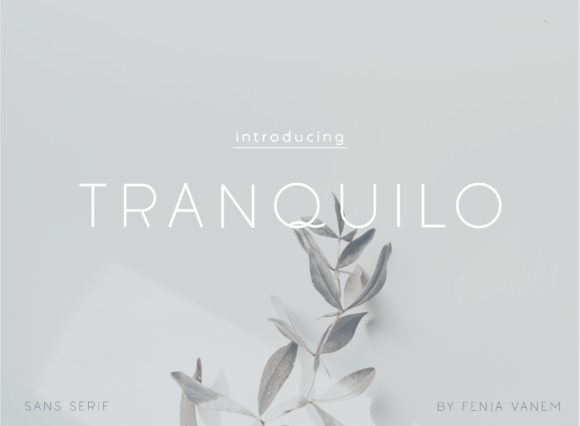
Introducing Tranquilo Font, the ultimate choice for those seeking the best font for a modern logo. Created by Pretty Decadent, this font family embodies the essence of sophistication and simplicity, making it a must-have for designers and creatives alike.
Tranquilo is a minimalistic and thin sans-serif font that effortlessly exudes modernity and elegance. Its sleek and slender letterforms captivate the eye and lend a clean, minimalist look to any design project. Whether you're working on branding, advertising, or editorial design, this font is a game-changer.
With Tranquilo Font, your brand will effortlessly stand out from the crowd. Its clean lines and refined curves add a touch of class and refinement to your logo, elevating it to new heights. Embrace the power of simplicity and let this font speak volumes about your brand's modernity and style.
This font is more than just a tool; it's a creative catalyst. It inspires designers to push boundaries and explore new horizons. With Tranquilo Font, you can unleash your creativity and bring your vision to life. Its versatility allows for endless possibilities, enabling you to create stunning designs that leave a lasting impression.
Whether you're a seasoned designer or just starting your creative journey, Tranquilo Font is the perfect companion. Its user-friendly nature ensures that you can easily incorporate it into your projects without any hassle. Say goodbye to tedious font selections and hello to a seamless design process.
Tranquilo Font is not just visually stunning; it also evokes emotions and creates a connection with your audience. Its modern and sleek appearance instills a sense of trust and professionalism, making it ideal for businesses across various industries. Leave a lasting impression on your clients and customers with this font that speaks volumes.
In a world where first impressions matter, Tranquilo Font guarantees that your brand will make a statement. Its captivating aesthetics and timeless appeal ensure that your logo will remain relevant for years to come. Stand out from the competition and let Tranquilo Font be the secret weapon in your design arsenal.
Experience the power of Tranquilo Font and unlock a world of possibilities. Elevate your designs, captivate your audience, and make a lasting impact with this font that embodies modernity, simplicity, and sophistication.